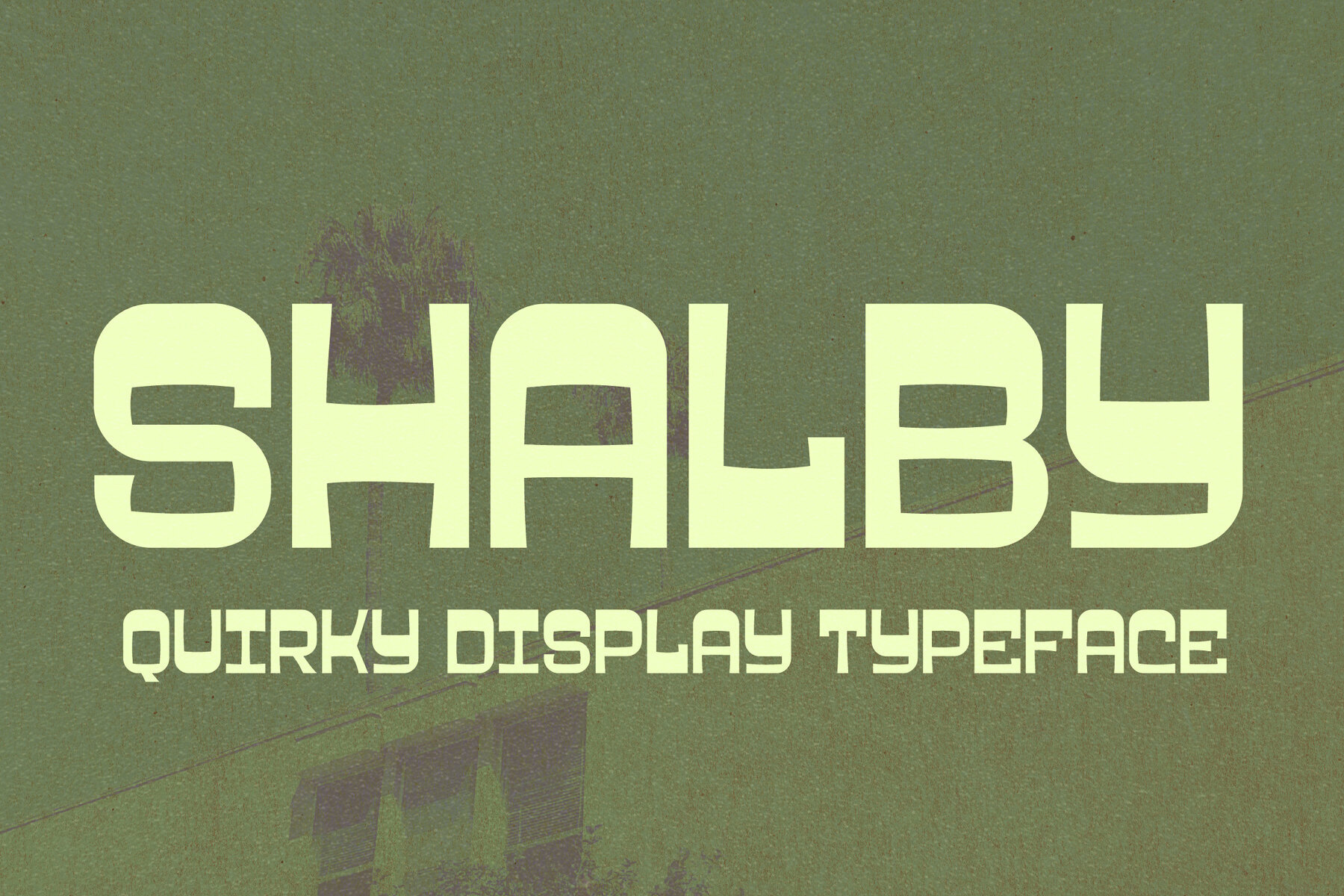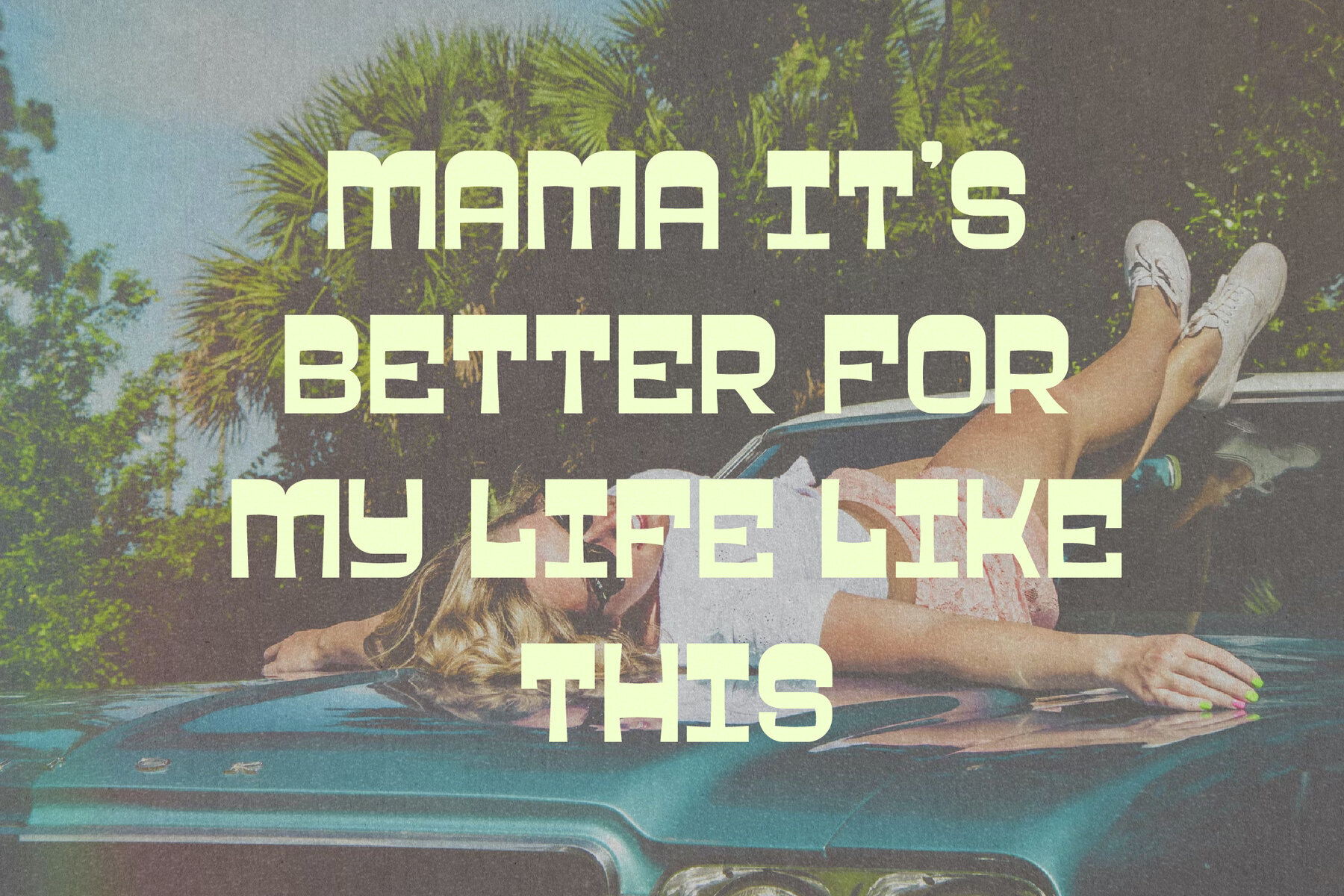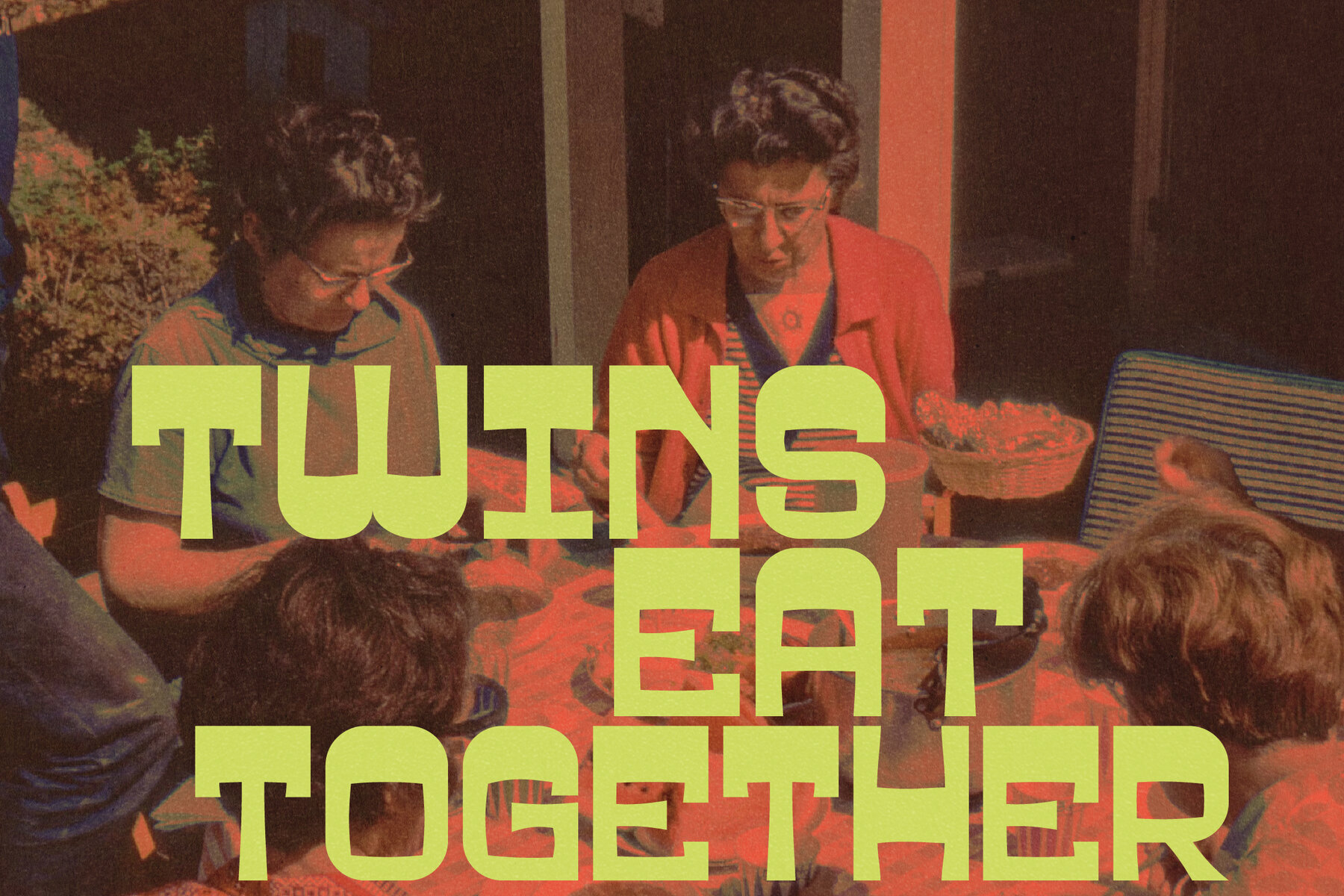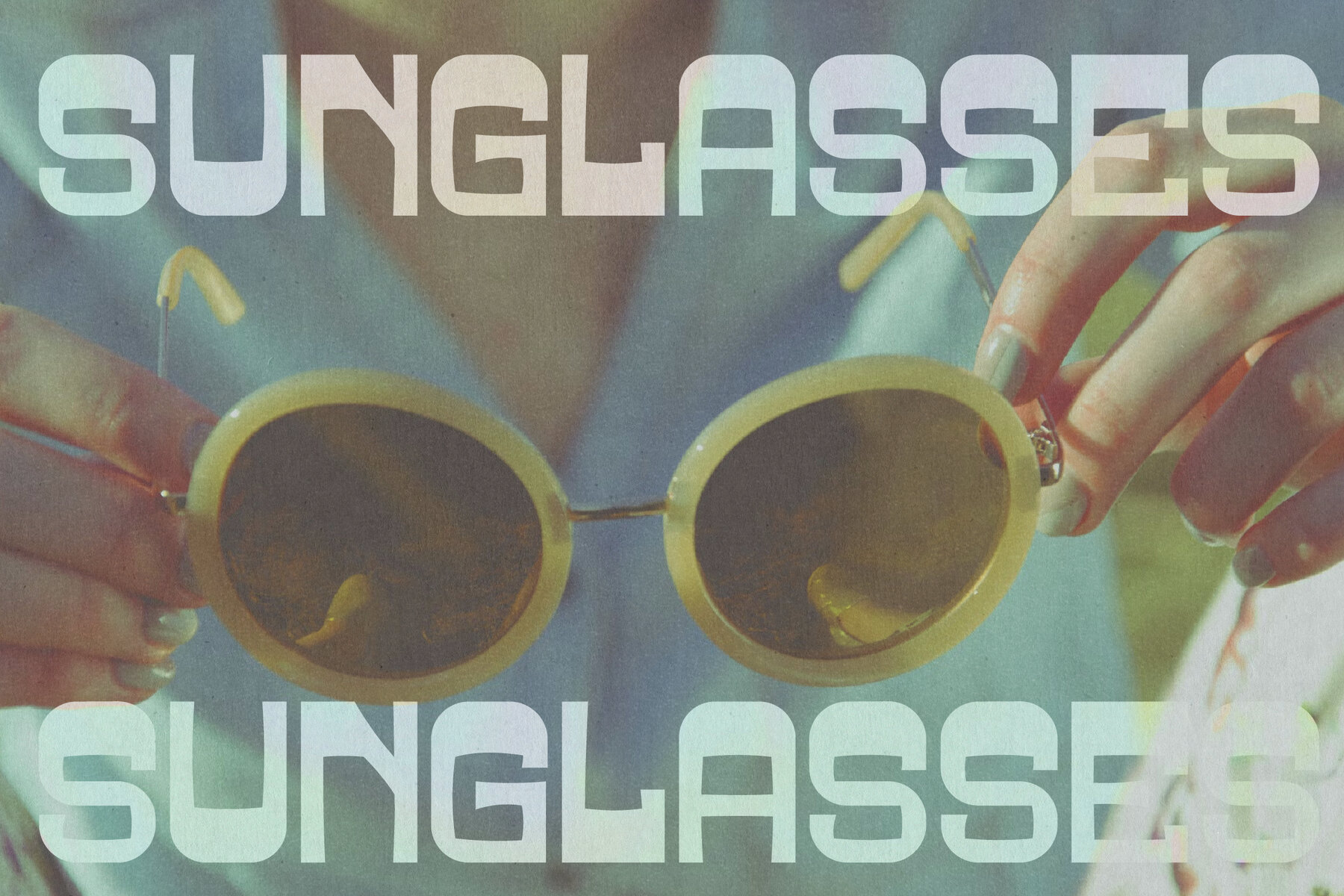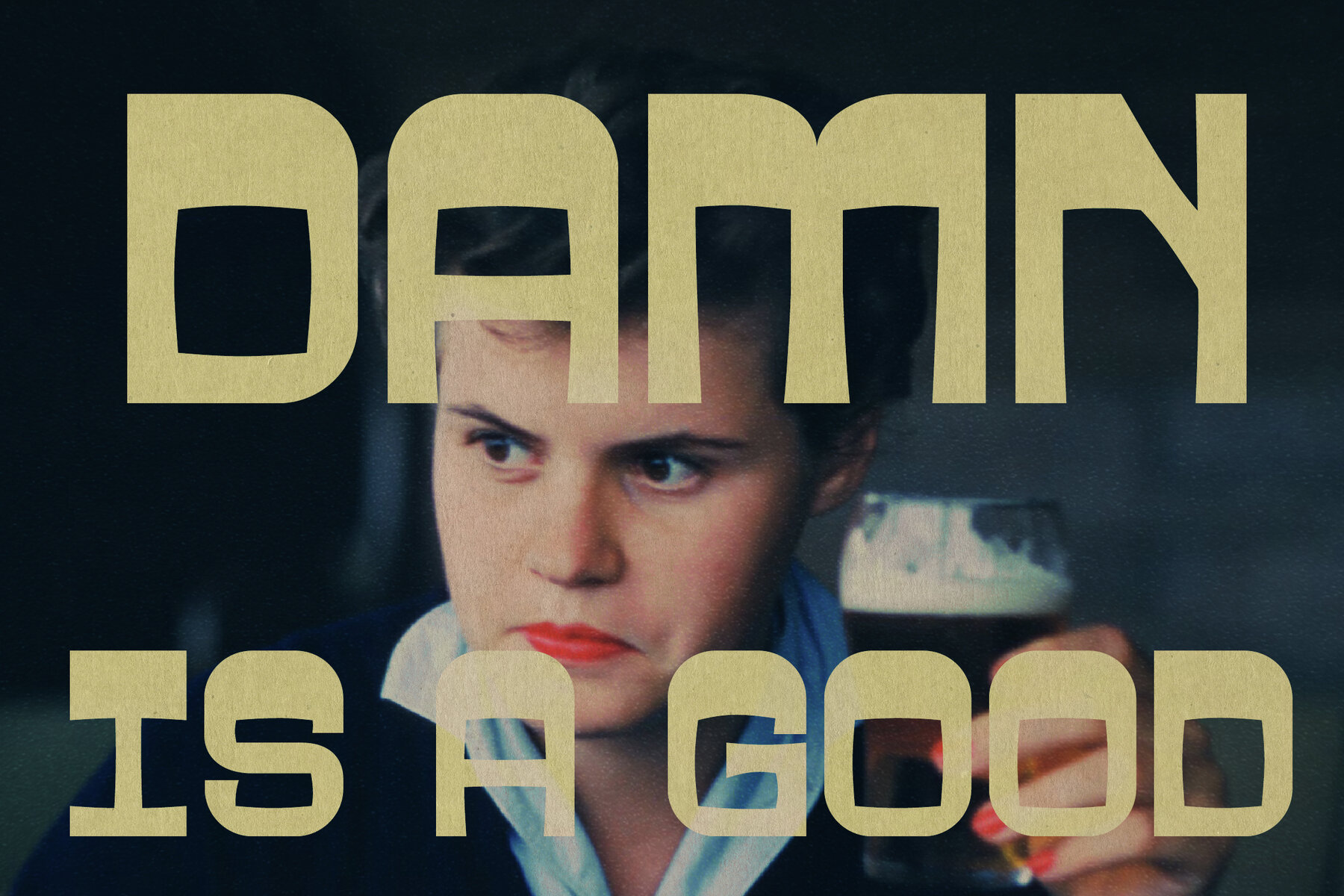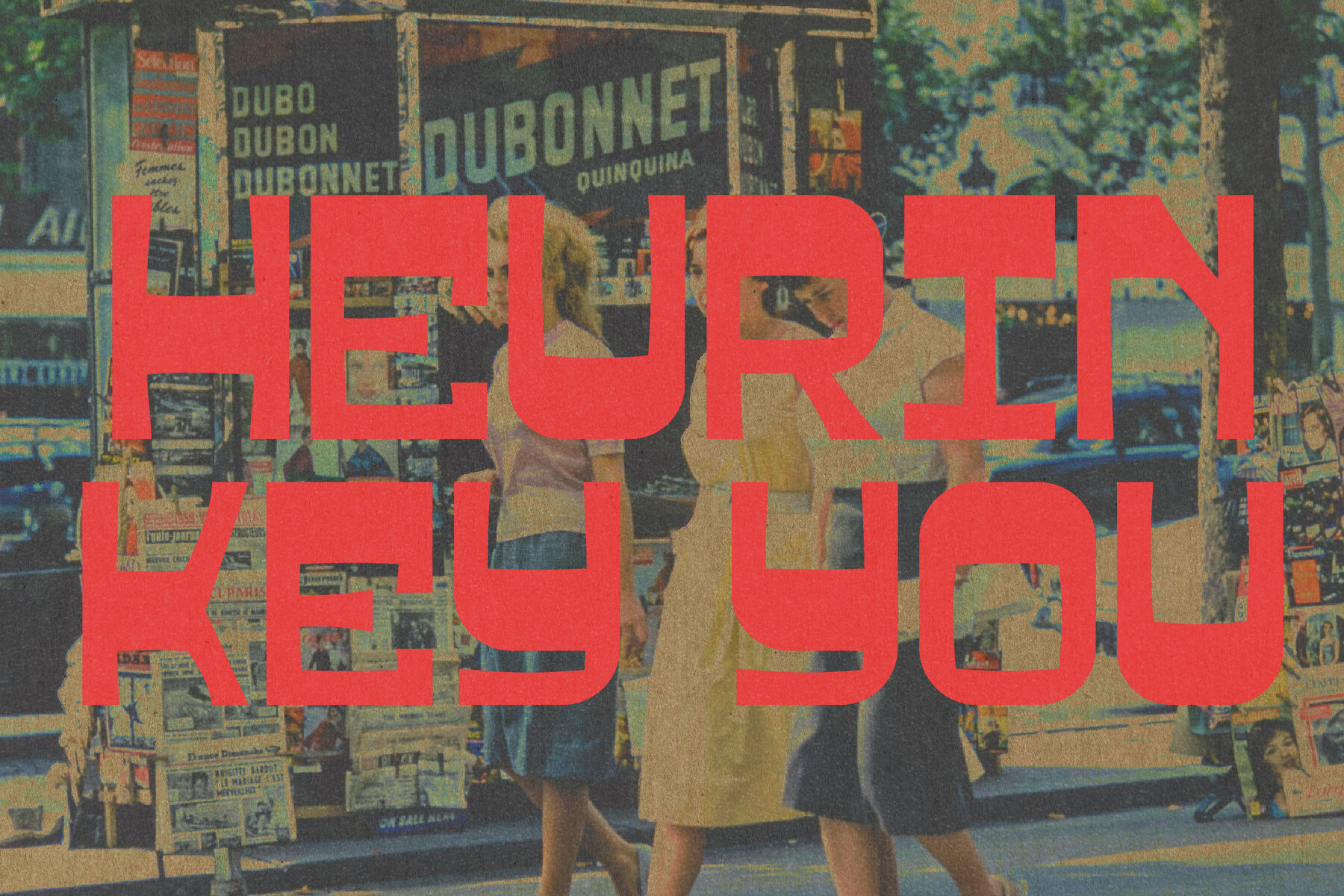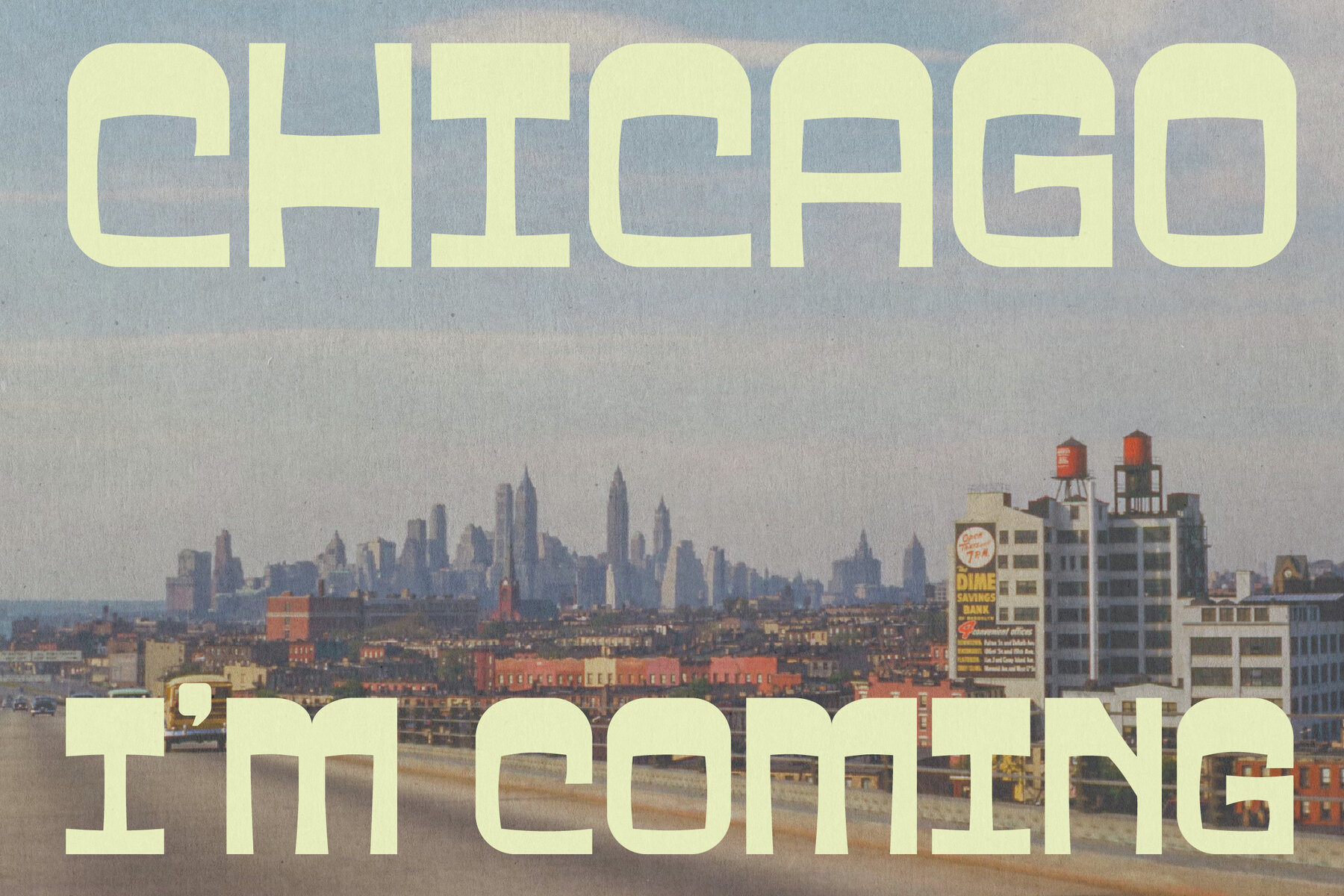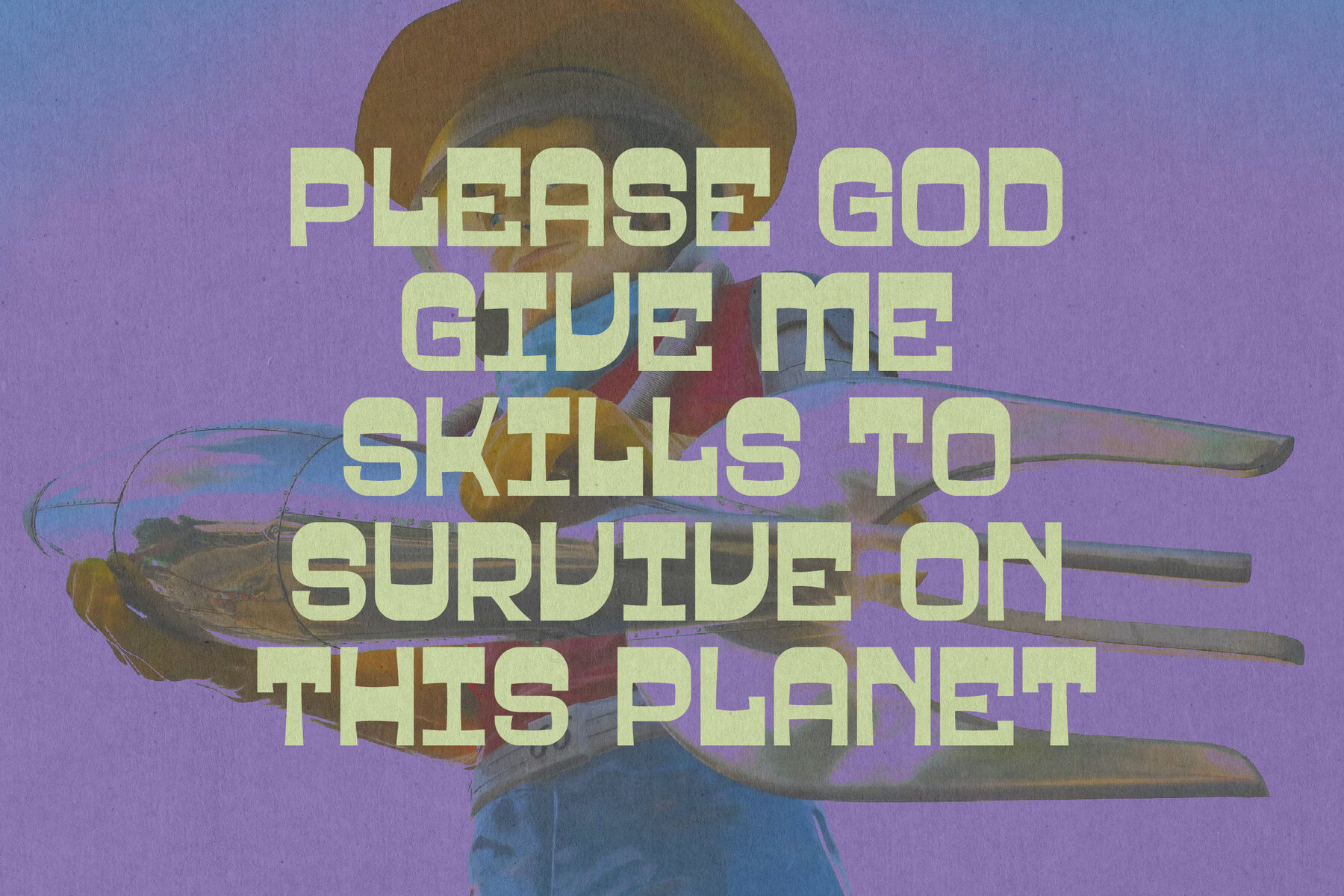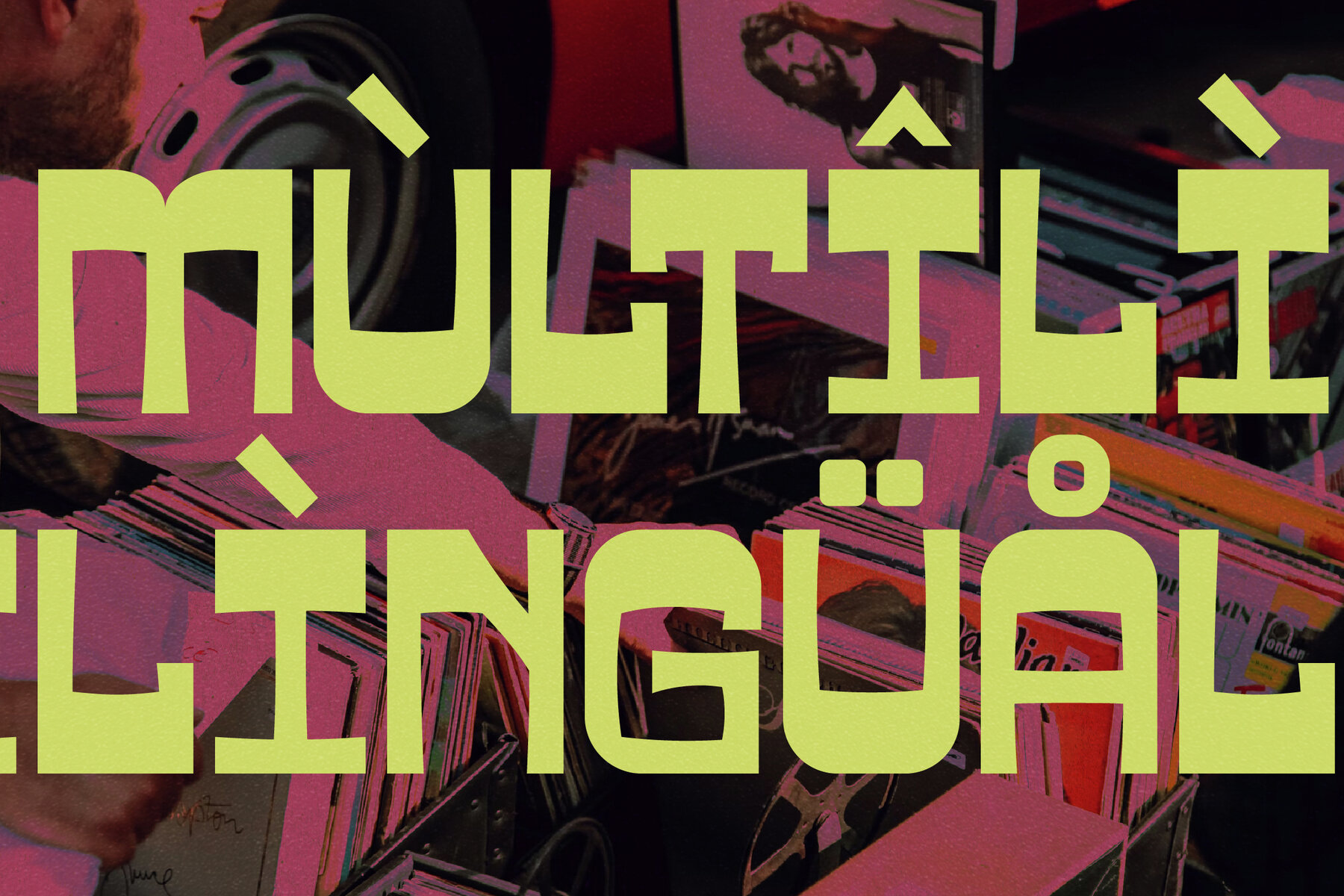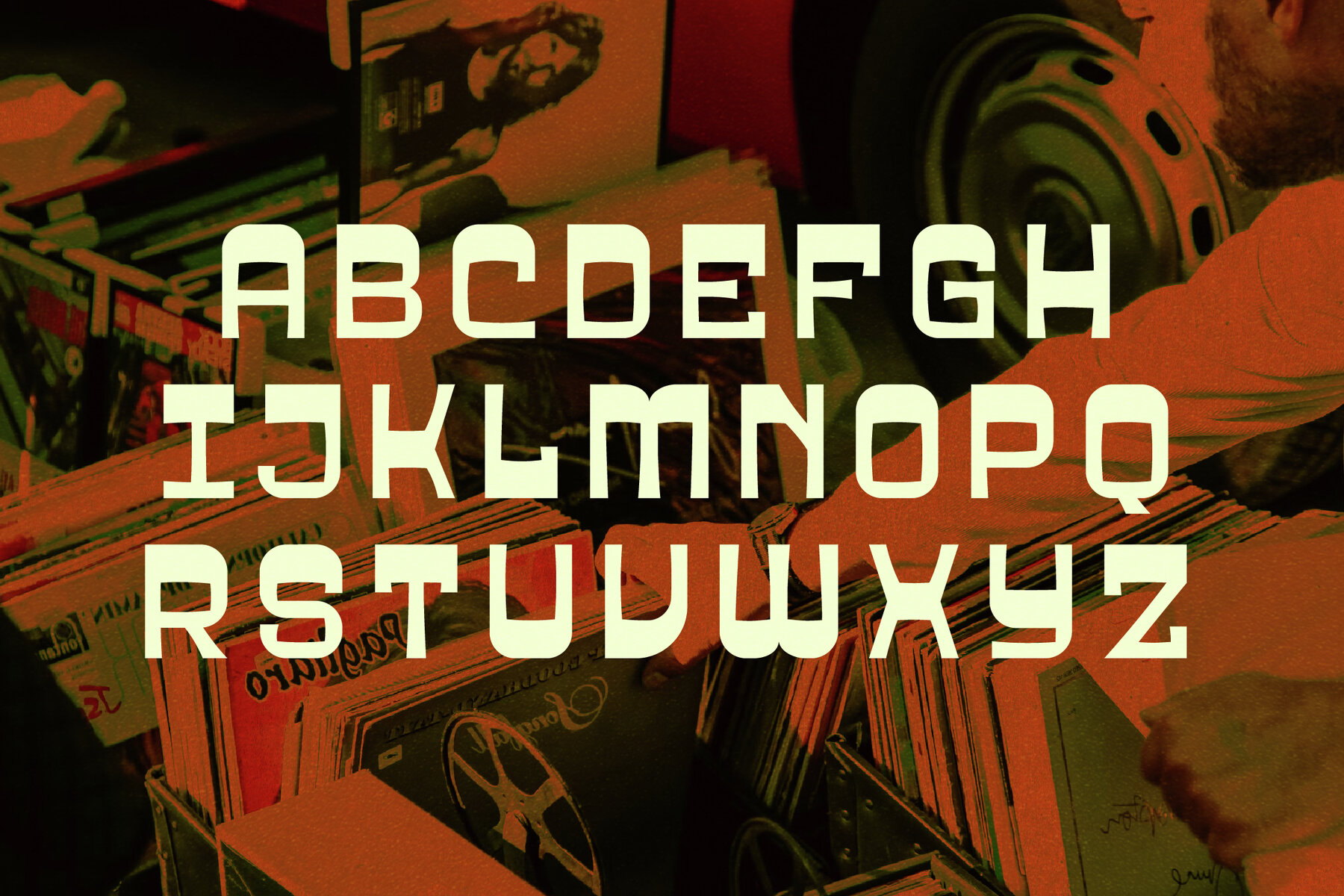
SHALBY Font
Experience the timeless elegance of the SHALBY Typeface by Storytype Studio, where modernity meets classic sophistication. Perfectly designed to elevate your creative projects, SHALBY brings a unique flair and refined aesthetics to logos, book and movie titles, fashion brands, magazines, clothing designs, and more.Introducing SHALBY Typeface